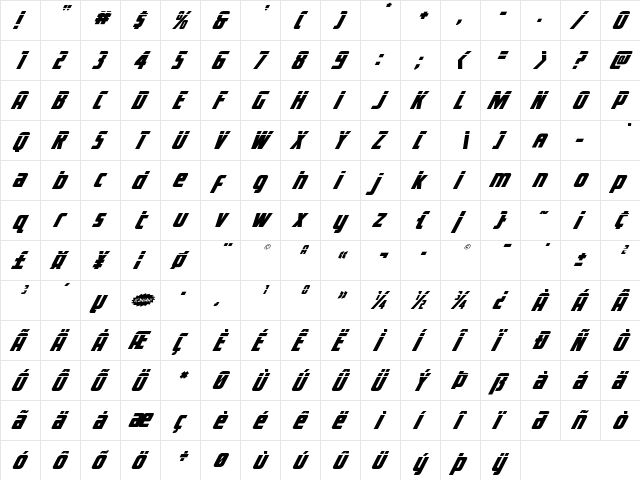
Voyage Fantastique Laser Italic Font Preview
Voyage Fantastique Laser Italic
Voyage Fantastique Laser Italic Font Details
Design Context for Voyage Fantastique Laser Typeface
Voyage Fantastique Laser is a composed and adaptable typeface that performs quietly and consistently across a wide range of design contexts. The slanted form adds forward momentum and visual energy.
Pro Tip: Use Voyage Fantastique Laser for emphasis, pull quotes, and subheadings where its slanted energy can add rhythm to the layout.